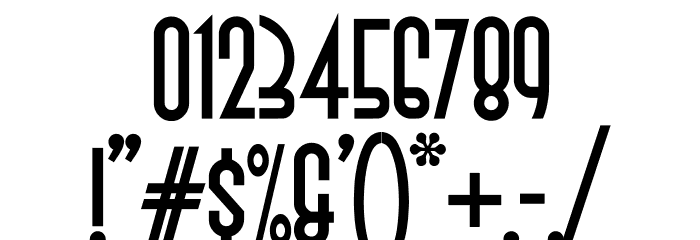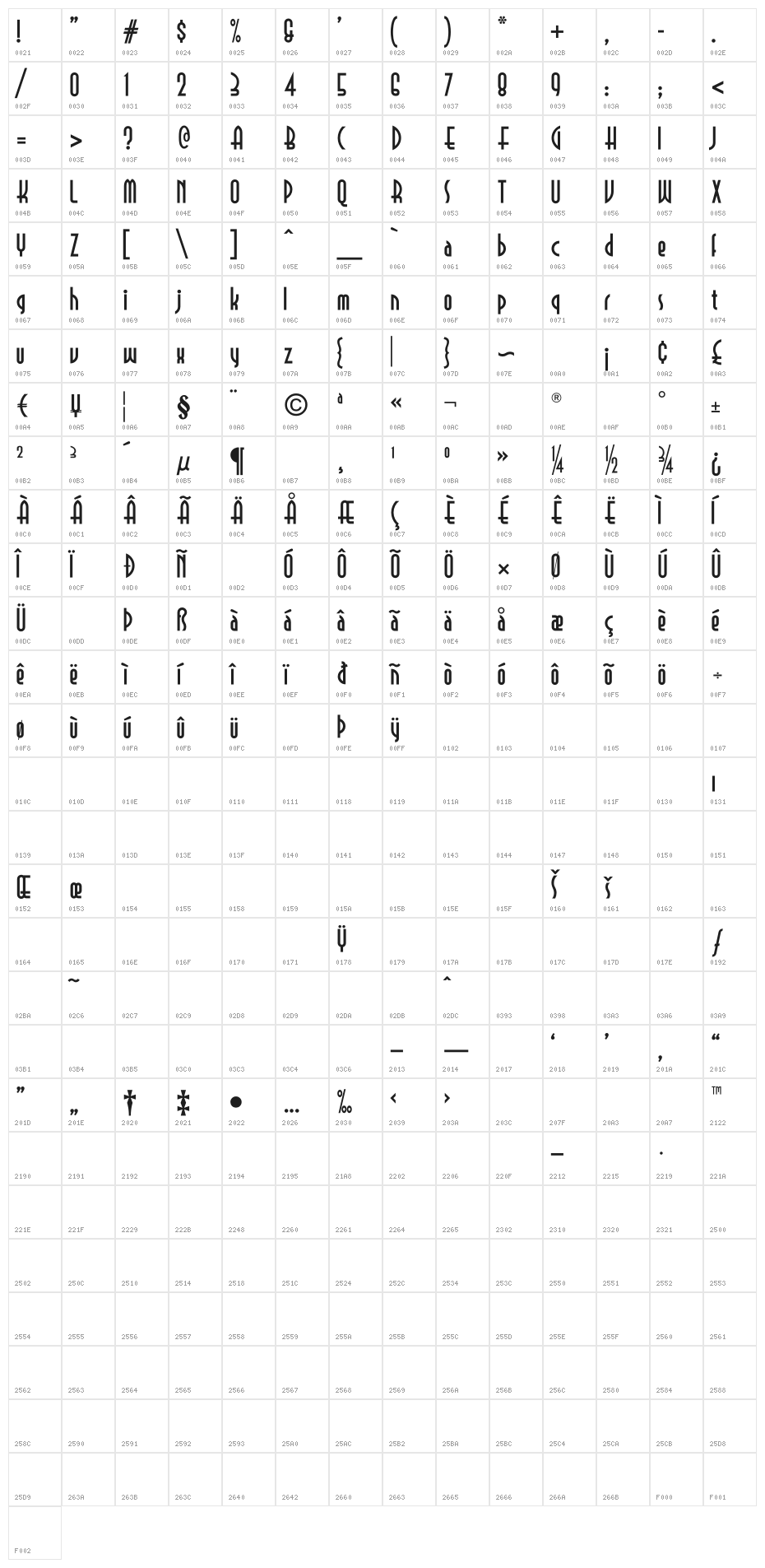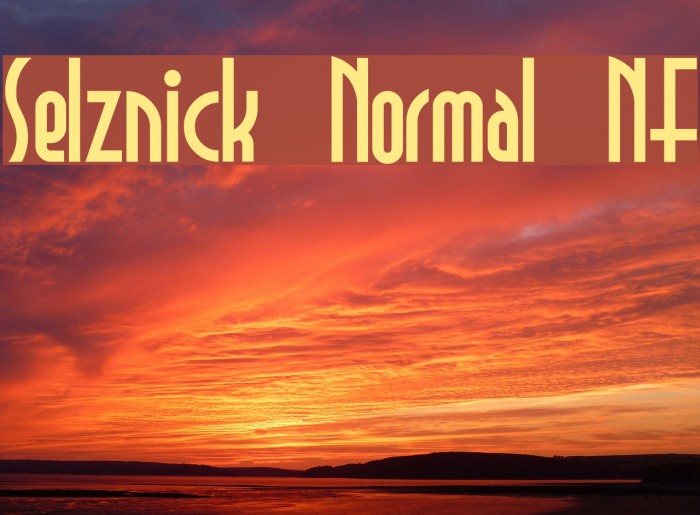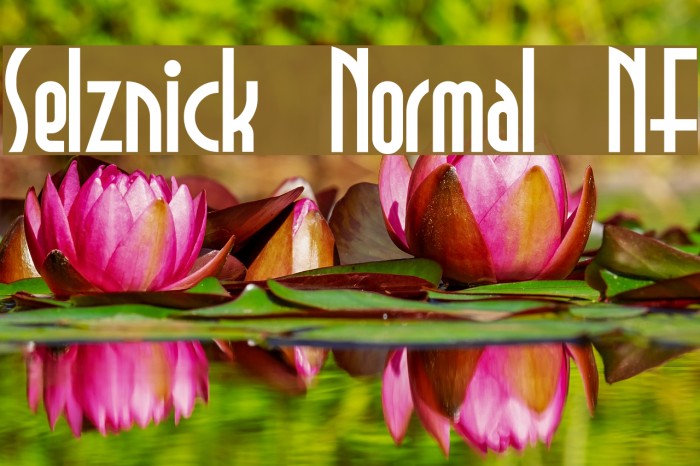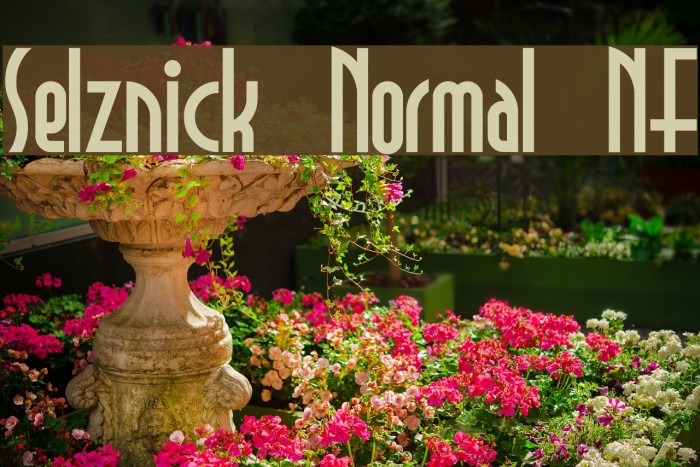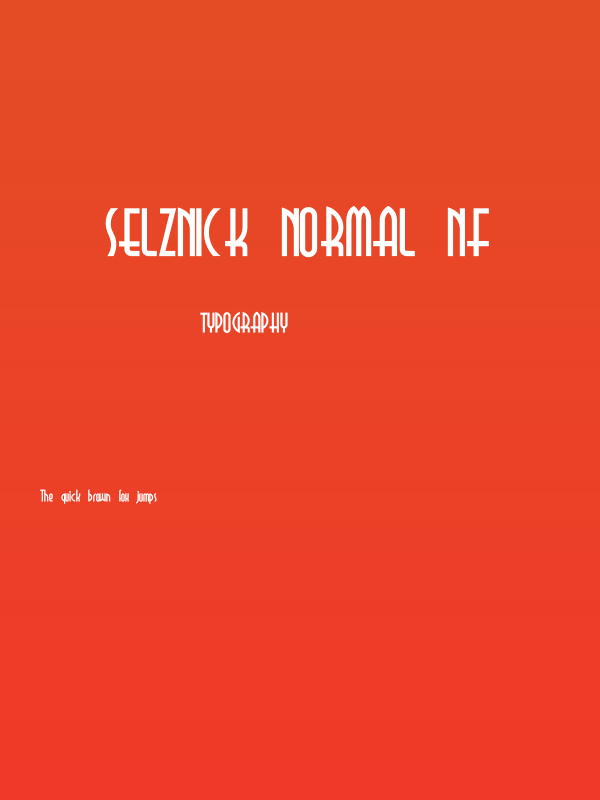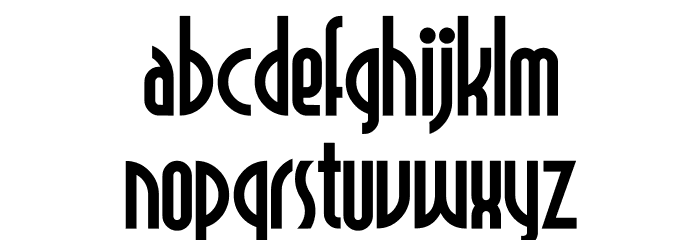
Selznick Normal NF Font
Selznick Normal NF Description
This font features a distinctive Art Deco style with elongated and geometric letterforms. The uppercase letters are tall and narrow, with a unique blend of curves and straight lines that create a sophisticated and elegant appearance. The lowercase letters maintain the geometric theme, offering a cohesive look across the typeface. Numbers and special characters are designed to complement the overall style, ensuring versatility in various design contexts. The font's clean lines and structured form make it suitable for projects that require a touch of vintage elegance.